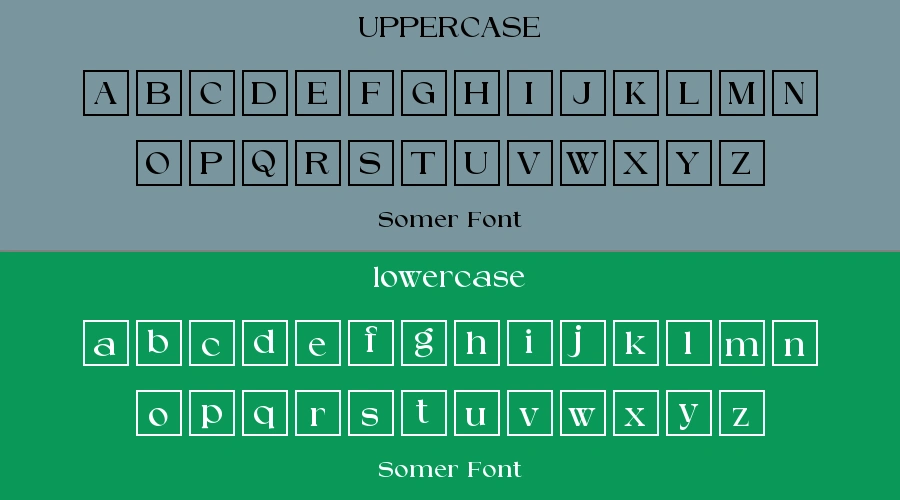
About Somer Font
Somer Font stands out for its distinctive combination of bracketed serifs and authenticity. Ideal for digital interfaces, it provides the professionalism and reliability that professional projects demand. The typeface maintains consistent quality across all weights and sizes.
Key features include refined clean corners and practical stylistic sets, enhancing typographic expression. In corporate communications applications, Somer Font demonstrates exceptional texture integration. The descender depth and technical tradition contribute to its distinctive character and professional appeal.